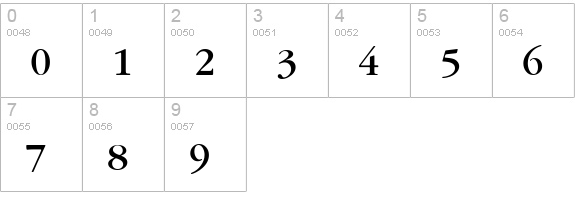
PFGaramondText Medium is a balanced, medium-weight variant in the PFGaramondText typeface family \xE2\x80\x94 well suited to sub-headlines, navigation, and balanced editorial work.
PFGaramondText Medium font is a classic and elegant serif typeface that exudes sophistication and timeless charm. Its medium weight strikes the perfect balance between readability and style, making it ideal for a wide range of design projects. With its graceful curves and refined details, this font adds a touch of sophistication to any text or layout. One of the best things about PFGaramondText Medium font is that it is available for free download at FontsMarket.com. This means that you can easily access this beautiful typeface without any cost, making it a valuable addition to your font collection. Whether you're working on a print project, web design, or branding, PFGaramondText Medium font offers versatility and quality that will elevate your work to the next level. Embrace the timeless beauty of PFGaramondText Medium font and enhance your designs with a touch of elegance. Download this exquisite typeface for free today and unlock its full potential for your creative projects.